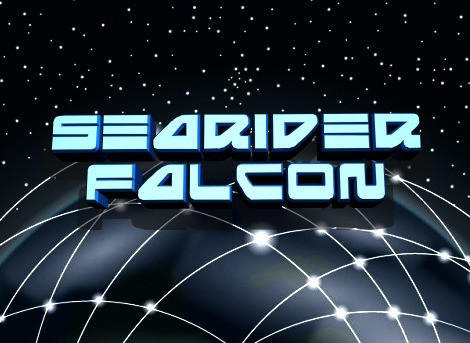
Searider Falcon Font
Searider Falcon Font, This bundle features strong, confident and powerful typefaces designed to work great with sports logos, club branding, apparel applications, labels and more.
It has a distinctive futuristic design. Use it to create time-traveling movie posters for futuristic or extraterrestrial productions. Fantastic for creating unique cards and artwork for science fiction fans.This font was created to be used for universal events like game competitions, wall advertisements, and poster designs. Your design can look better with a simple combination. Purchase it right away to enjoy using it ahead of the competition.